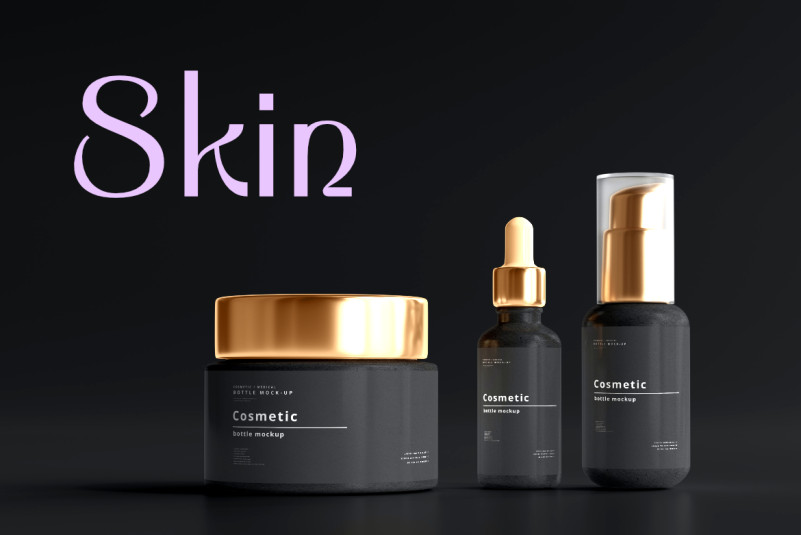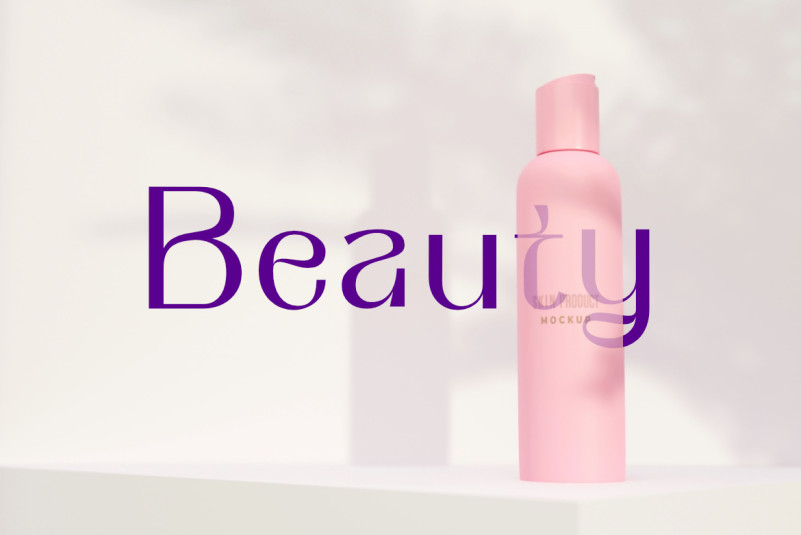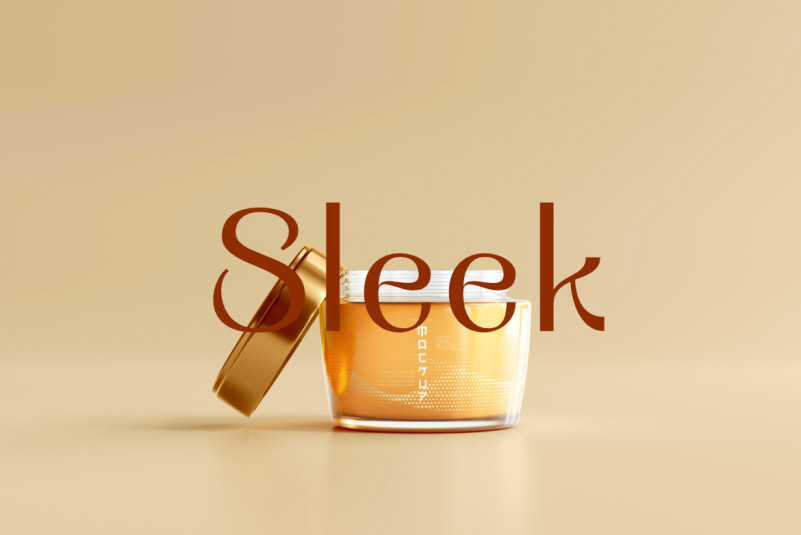
Lemonstyle Font
Lemonstyle Sans Serif Font, is a modern sans serif font. It’s perfect for posters, logos, magazines, cover books, banners, and much more!
lemonstyle was made with girly characters